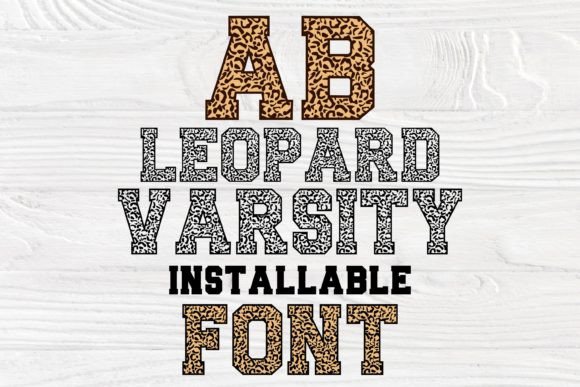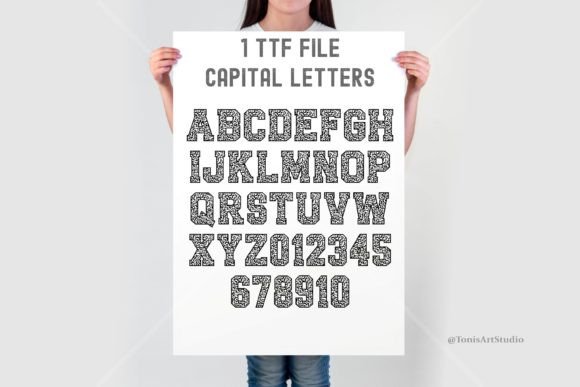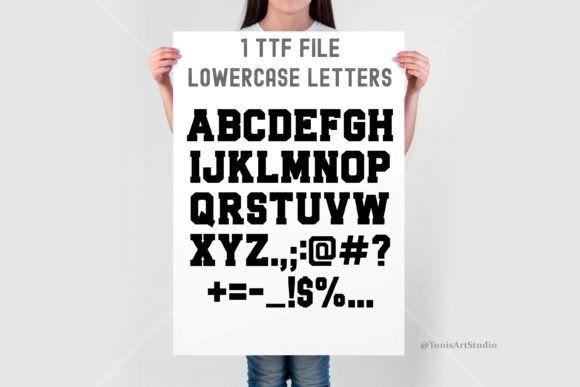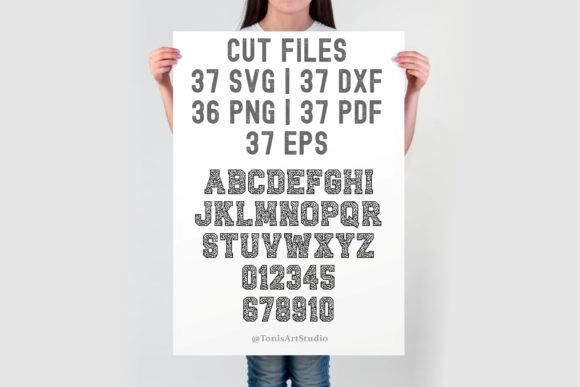
Unleash Your Creativity with the Ultimate Leopard Varsity Font
Remember that moment when you finally found the perfect font to match your design vision? The one that makes your project pop and leaves a lasting impression? For designers, it’s a moment of pure excitement and relief. And that’s exactly what we’ve got for you – the Ab Leopard Varsity Font, a game-changing collection of letters that will elevate your creative projects to the next level.
This stunning font combines the classic varsity style with a bold, trendy leopard print, offering a unique touch to your designs. With its versatility, the Ab Leopard Varsity Font is perfect for crafting custom apparel, home decor, digital designs, and more. Whether you’re a seasoned designer or just starting out, this font is a valuable addition to your toolkit, providing endless possibilities for creative expression.
- Font Style: Display Font
- Character Count: 240 glyphs
- Unique Characteristics: Bold and condensed design with a modern twist, suitable for headings and titles
Ab Leopard Varsity Font Review
Overall, I’d say Ab Leopard Varsity Font is a solid addition to any typography enthusiast’s collection. Here are a few things that I think work well: ✨
- Unique, vintage-inspired aesthetic that’s sure to add some personality to your designs.
- Clean, crisp lines that make it easy to read, even at smaller font sizes.
- Pretty versatile – works well for both body text and headings.
That being said, there are a few limitations to consider: ⚠️
- May not be the best choice for complex or technical text, due to its relatively simple letterforms.
- Some users may find the font a bit too ornate or over-the-top, depending on their personal style.
- Not ideal for use at extremely large or extremely small font sizes, where it may become difficult to read or lose its shape.
Overall, I think Ab Leopard Varsity Font is a fun, unique choice that can add some visual interest to your designs. While it may not be the best fit for every project, it’s definitely worth considering for the right type of design.
Ab Leopard Varsity font is perfect for creating bold and eye-catching headings. To get the most out of it, use it sparingly and pair it with a clean and simple font for body text.
Experiment with different font sizes and colors to create a striking visual effect.
Ab Leopard Varsity font is ideal for:
- Headings and titles
- Marketing materials and advertisements
- Editorial and publishing content